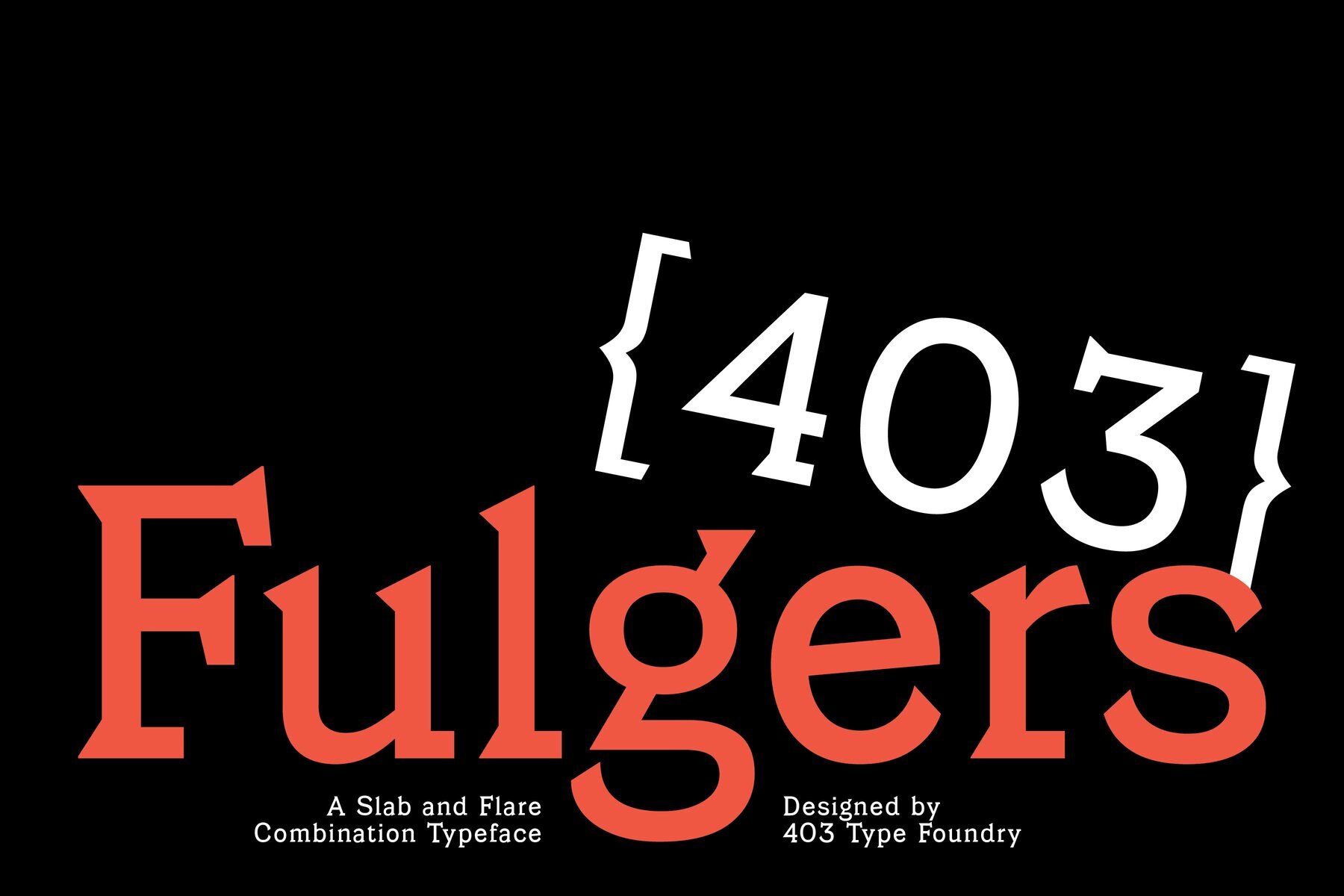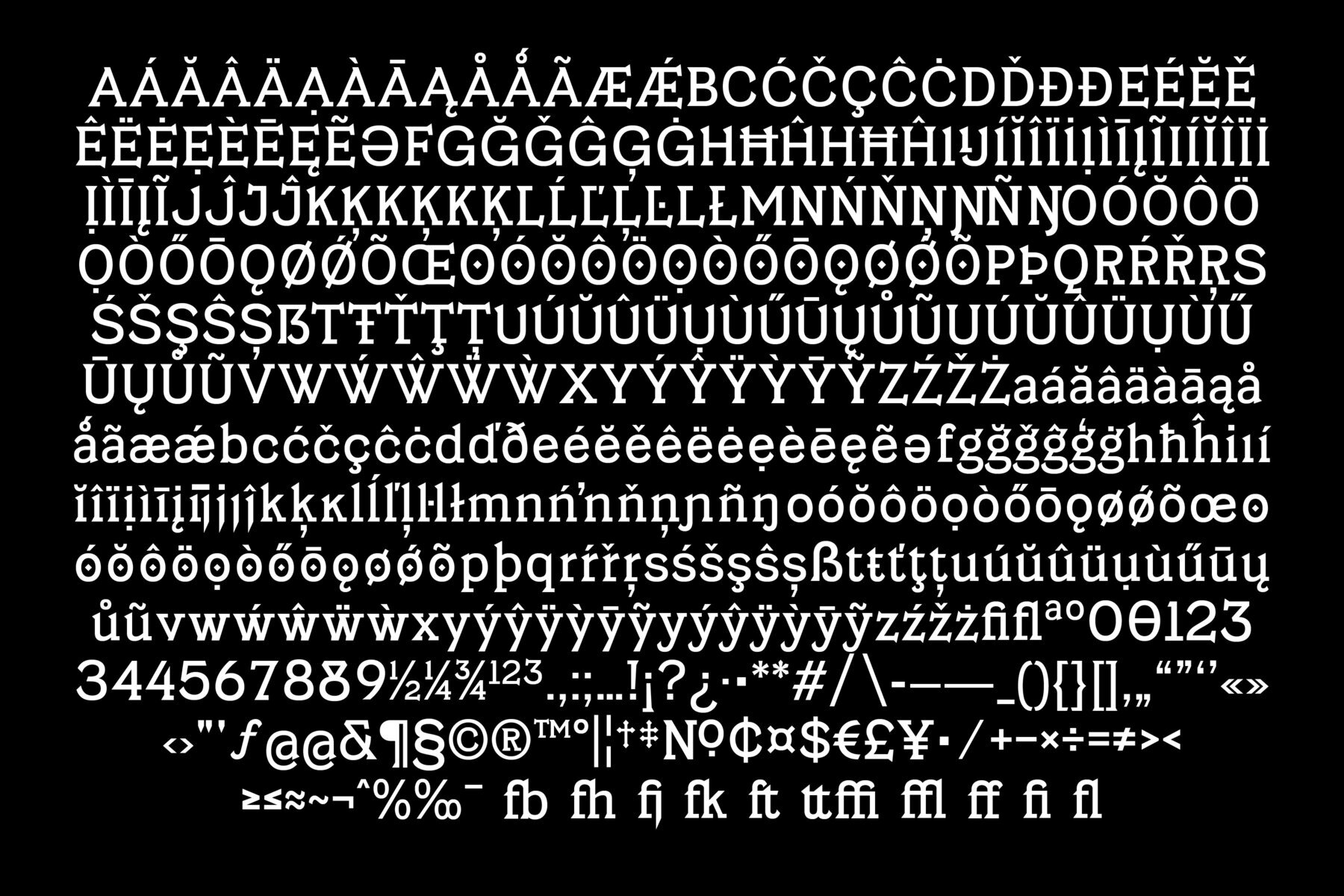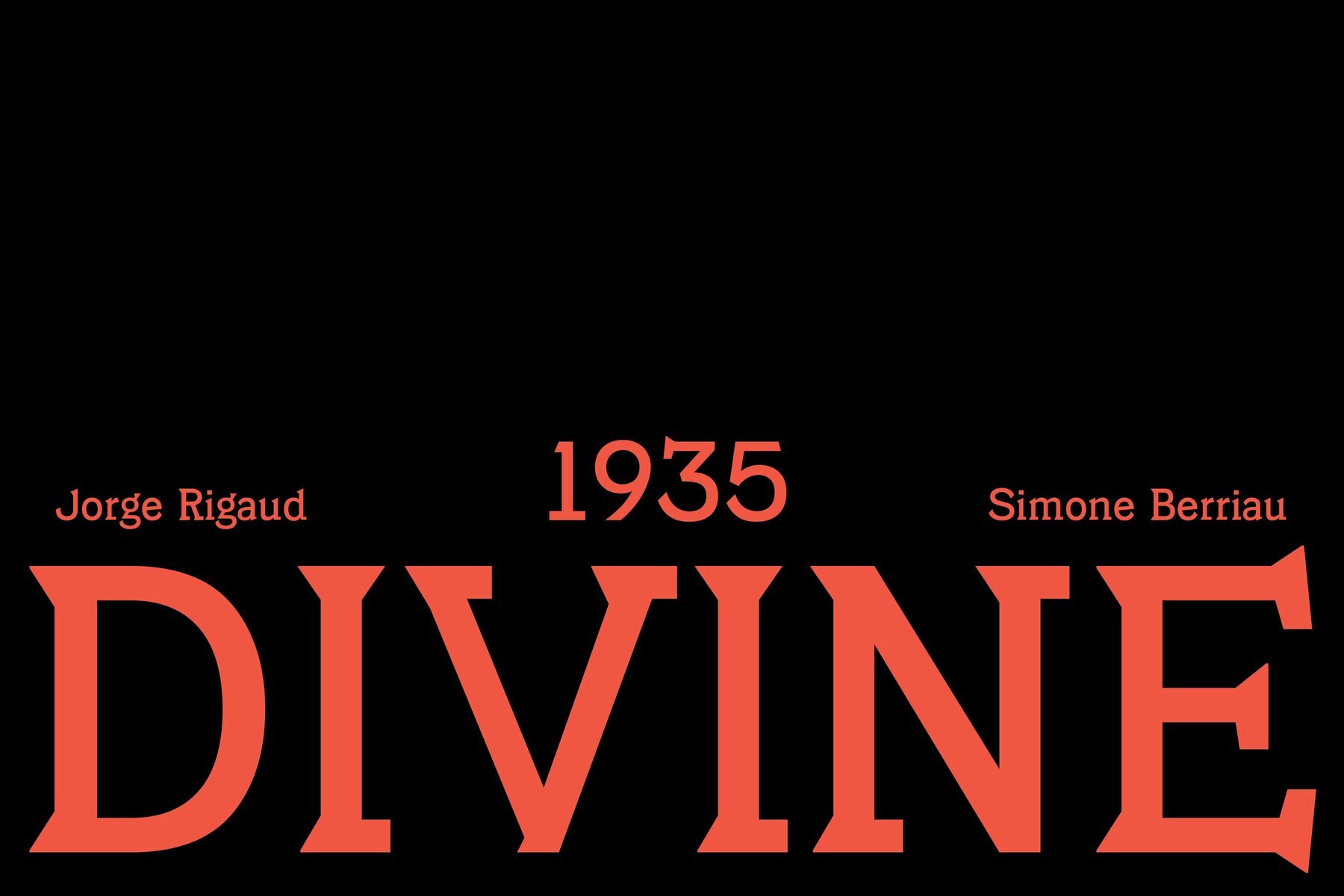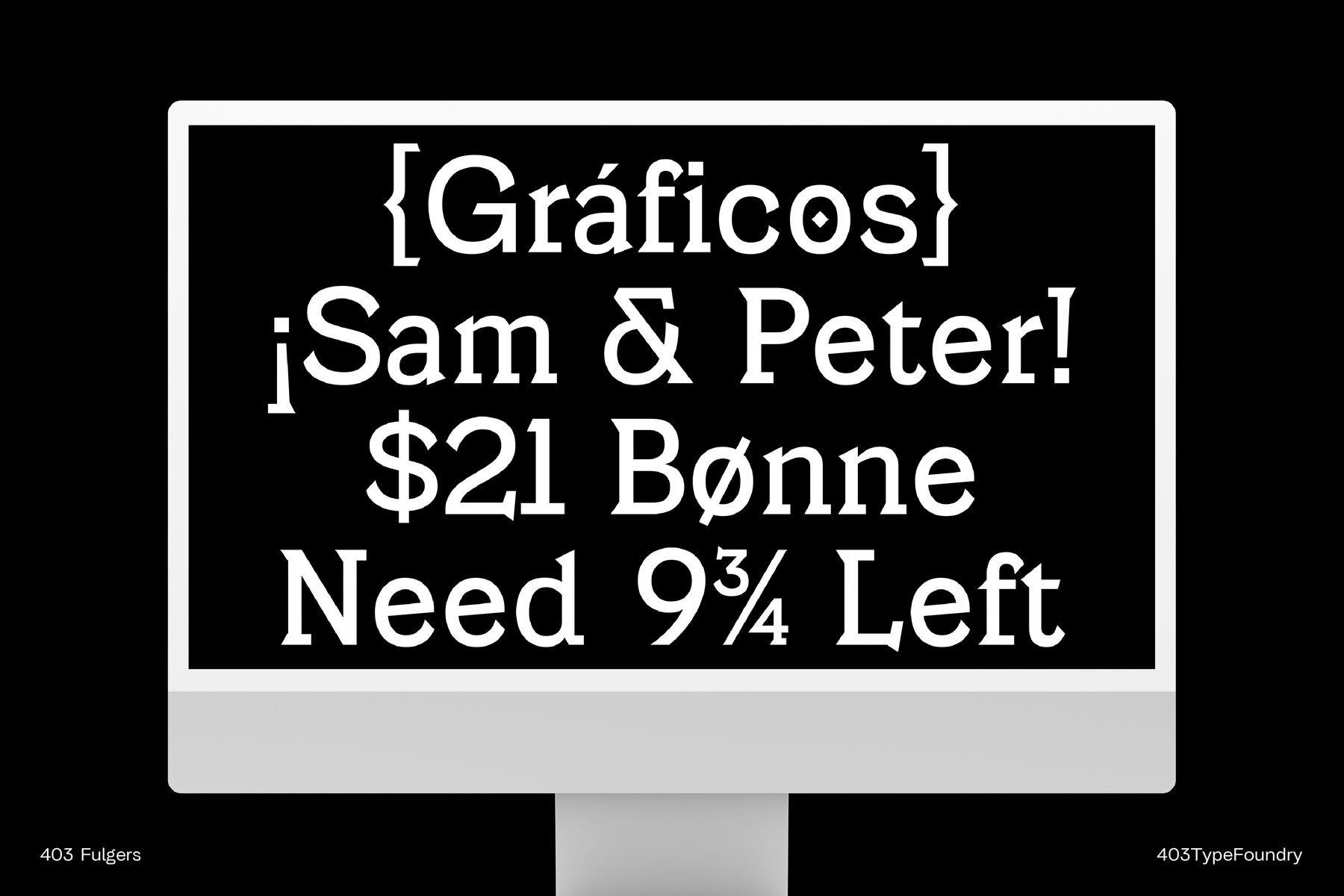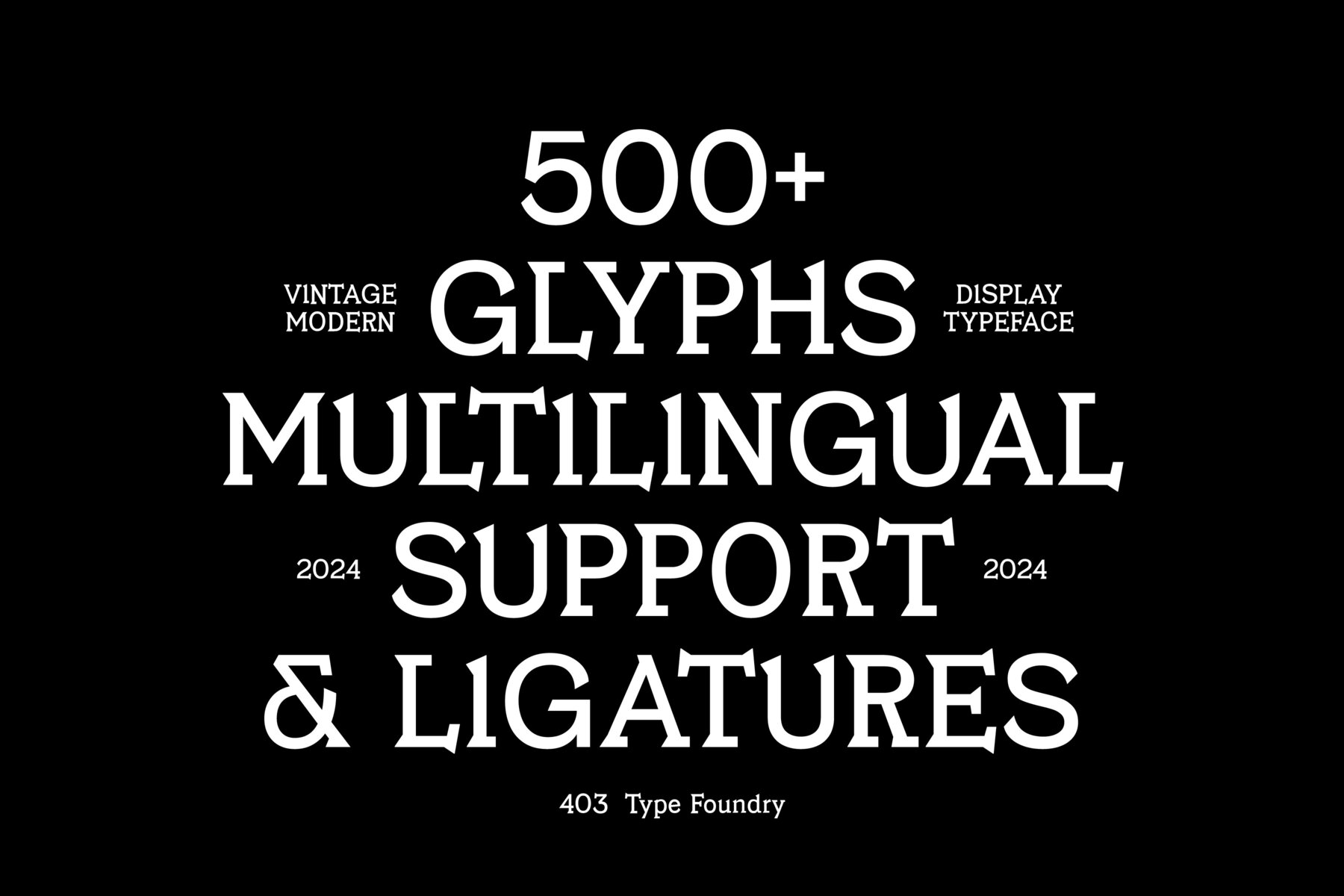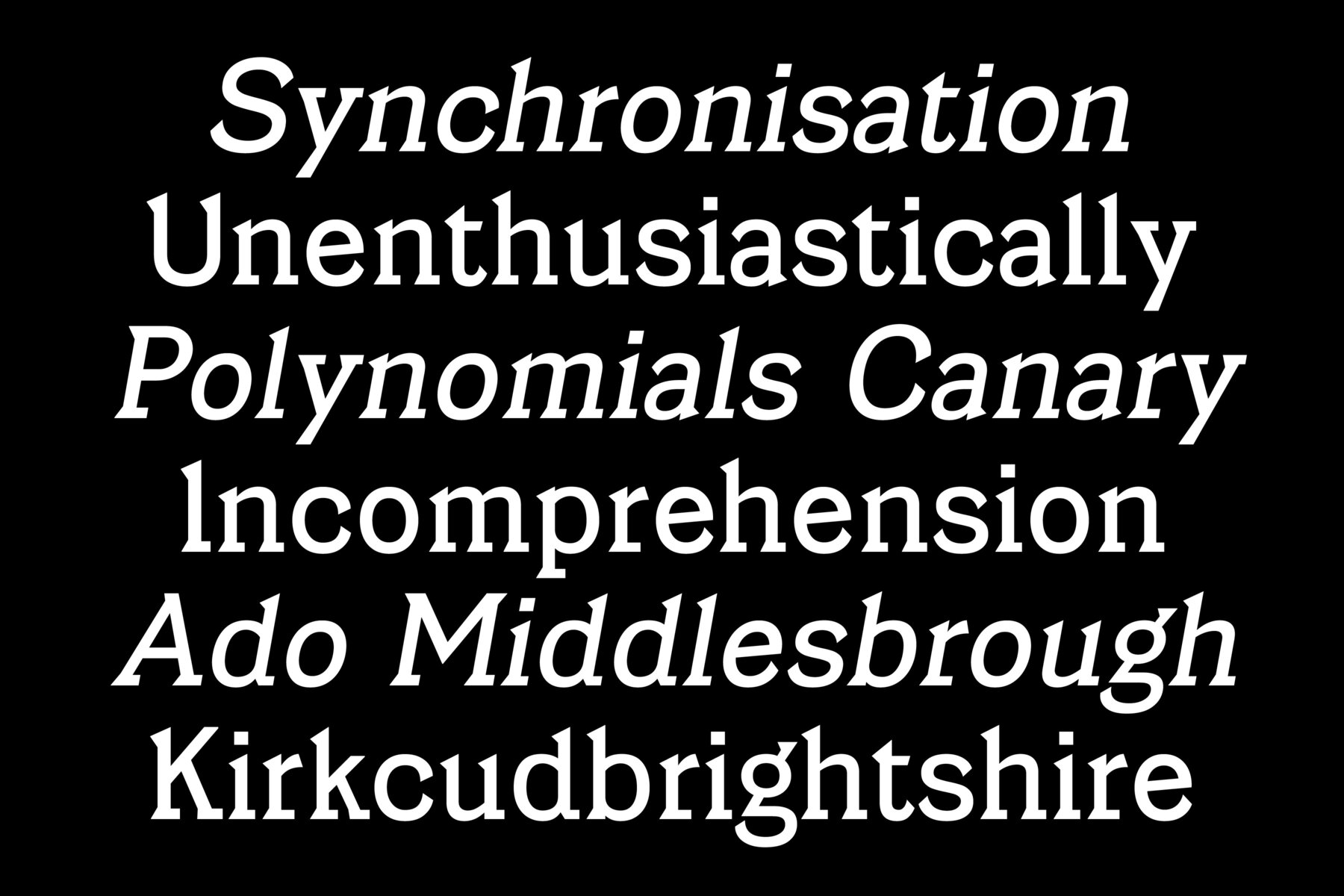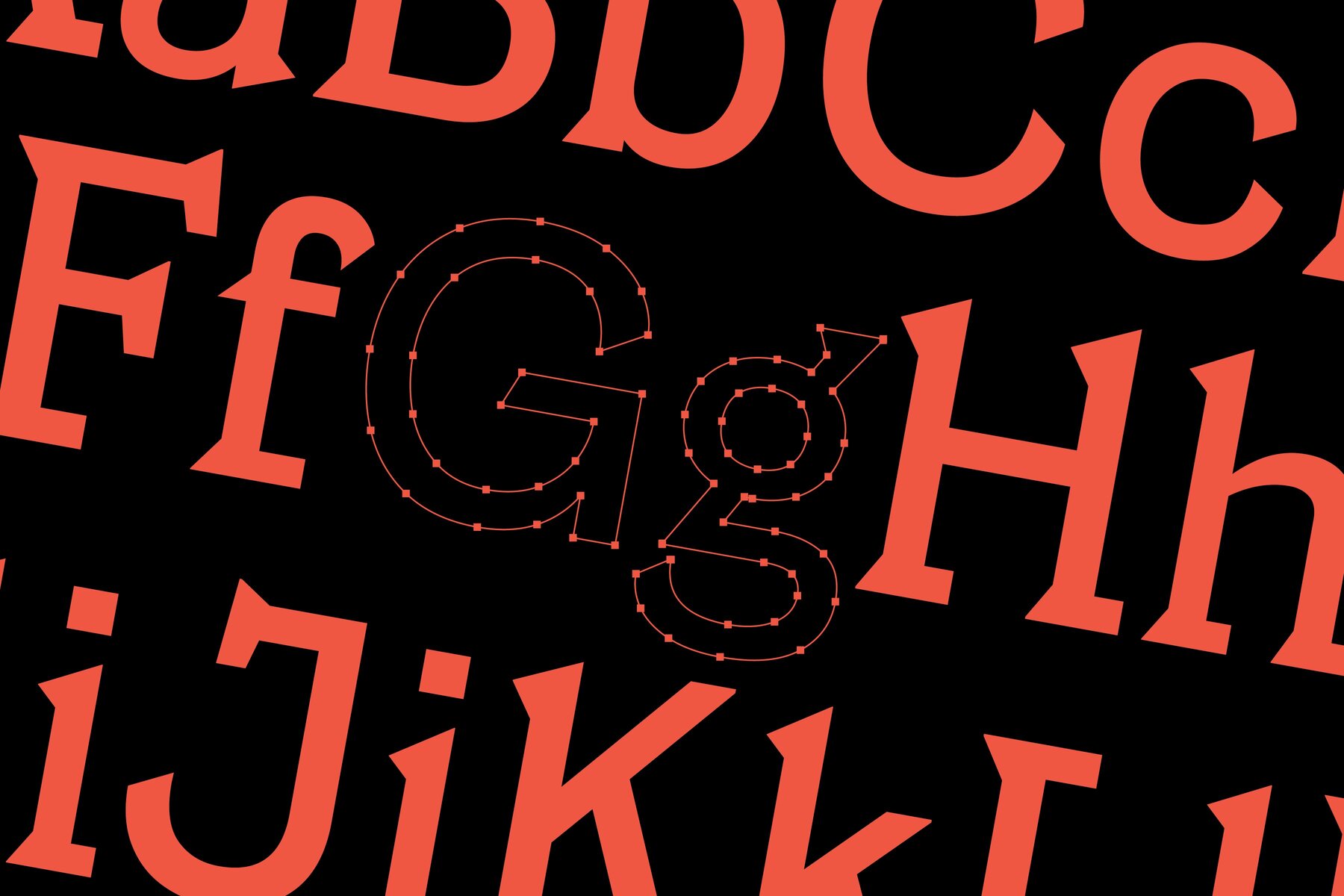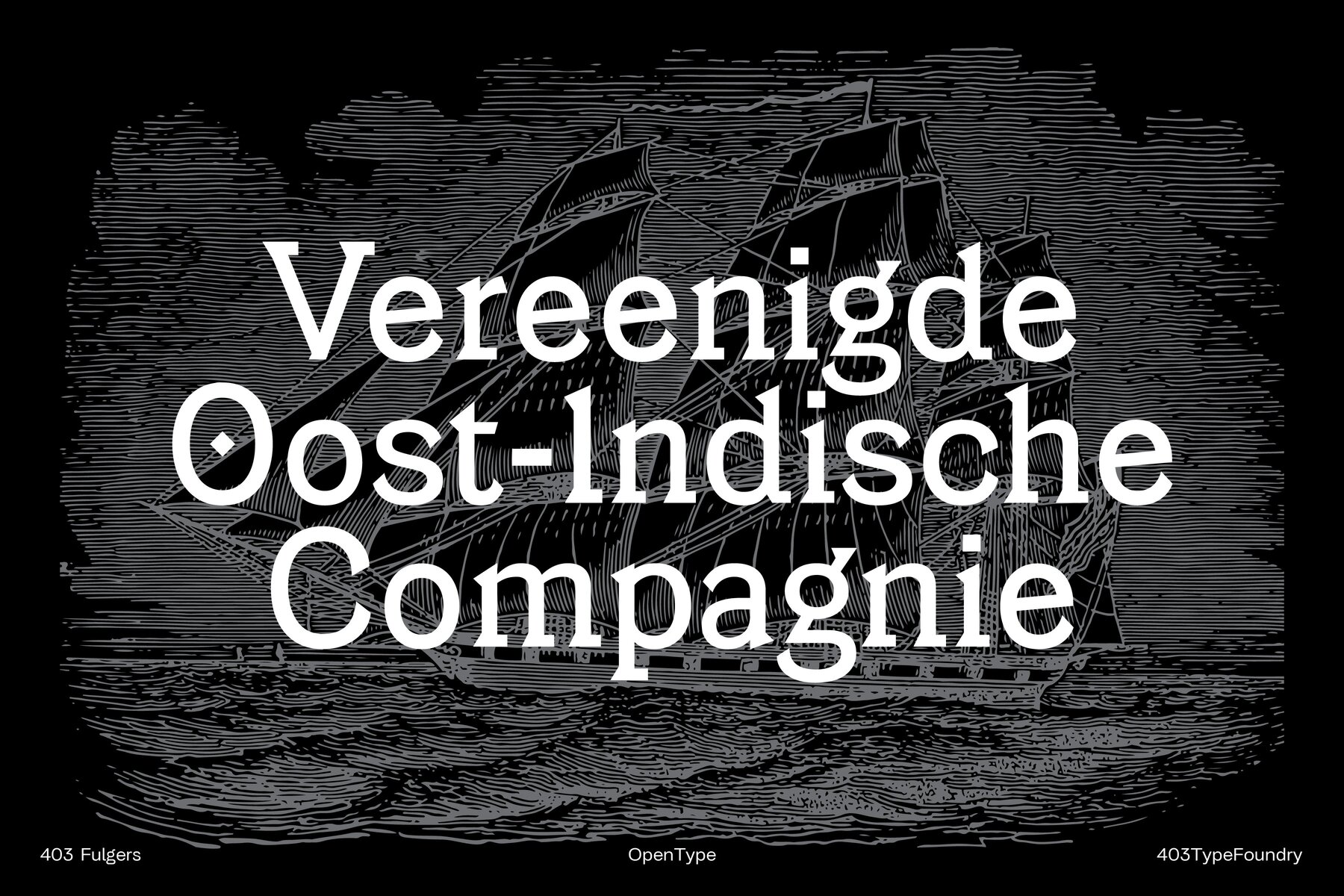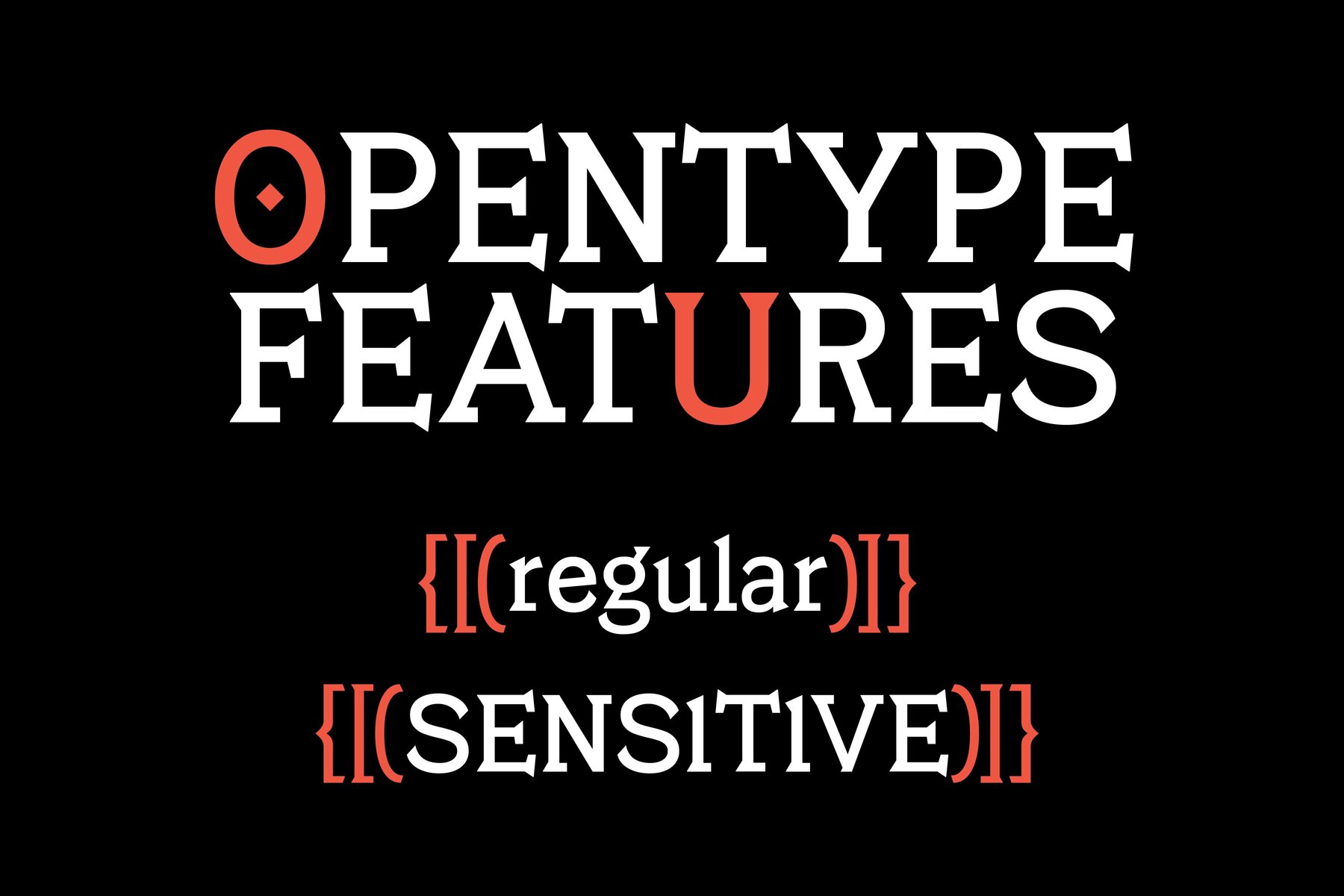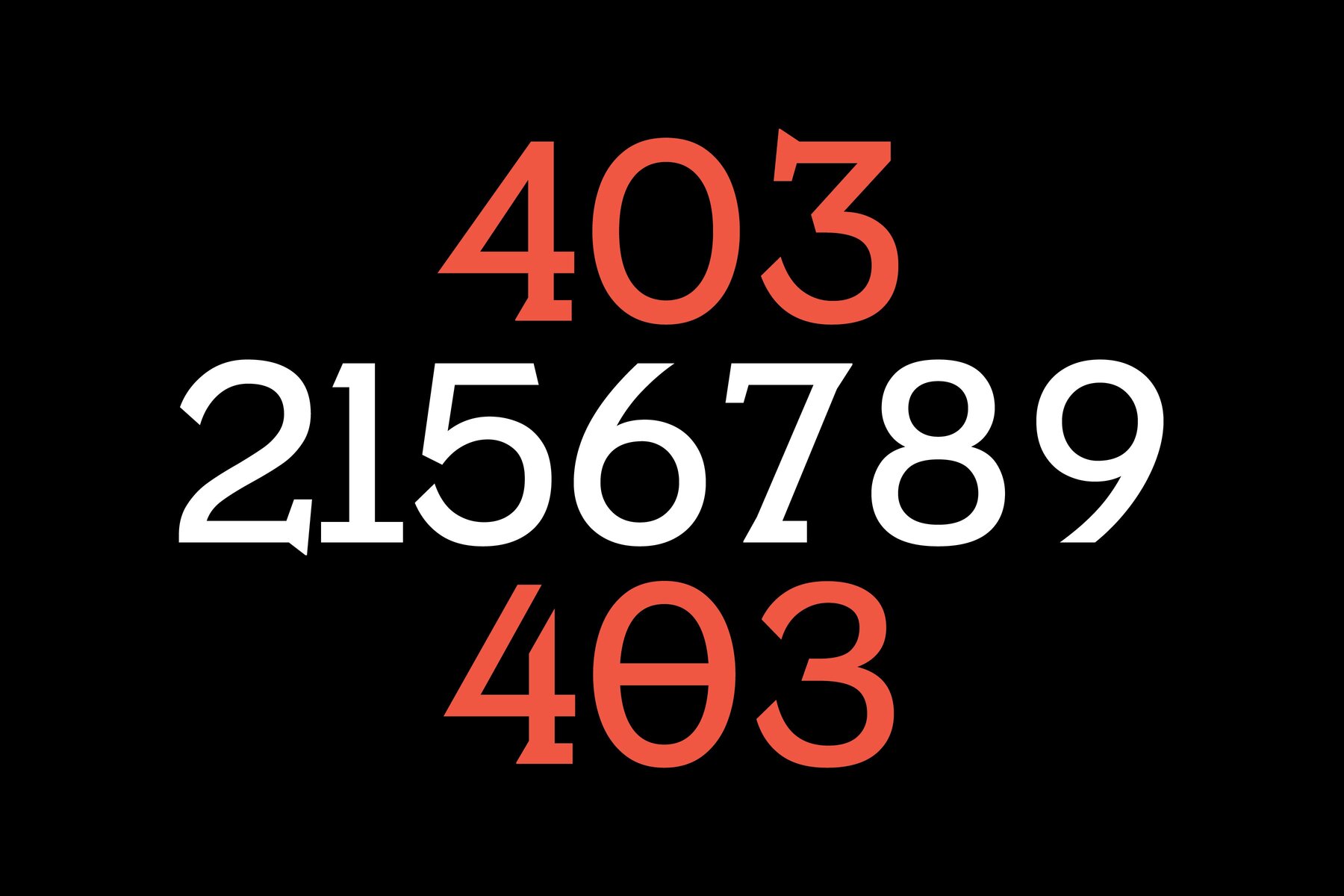
403 Fulgers Font
403 Fulgers Regular
403 Fulgers Slant
Presenting 403 Fulgers, a creative typeface that masterfully combines the dynamic flair of current design with the timeless appeal of slab serifs. This experimental typeface has a distinctive look that makes it stand out in any project and radiates old modern vibes. Its broad ligatures and multilingual support, together with its more than 500 glyphs, ensure variety and originality in your typographic pursuits. 403 Fulgers, which come in two different types and one weight, are ideal for anyone wishing to add a little of modern edge and classic beauty to their work.